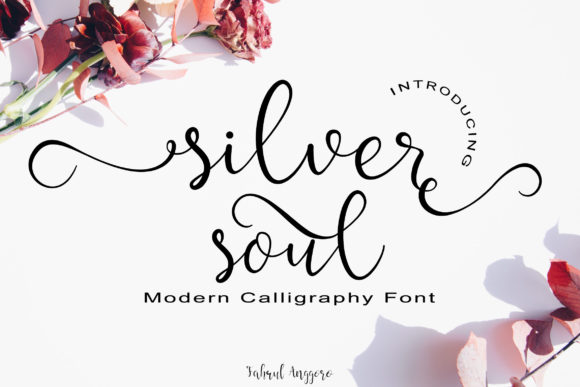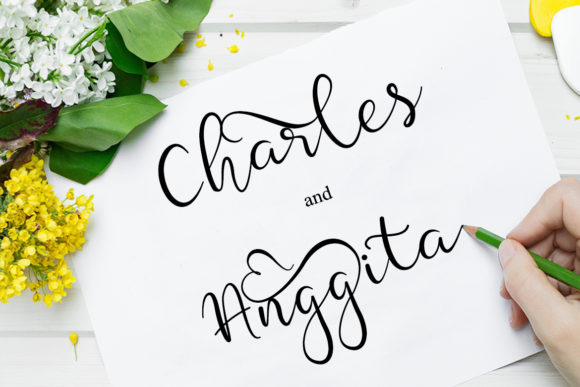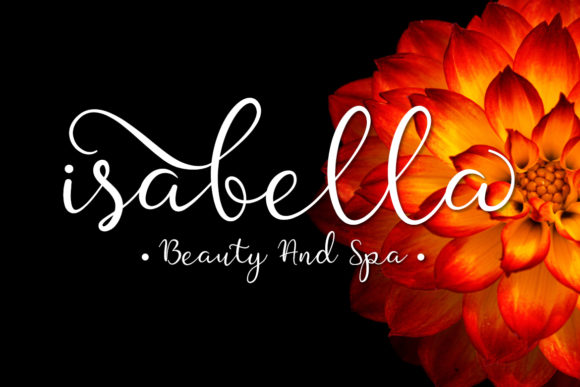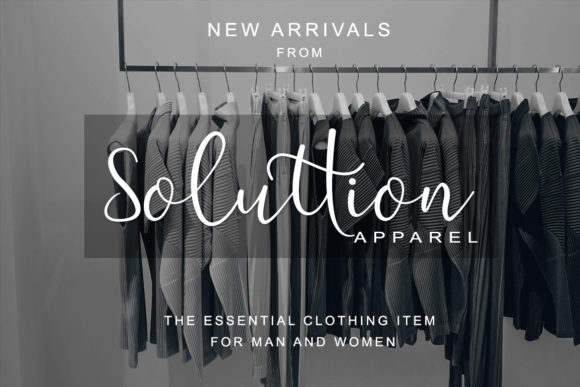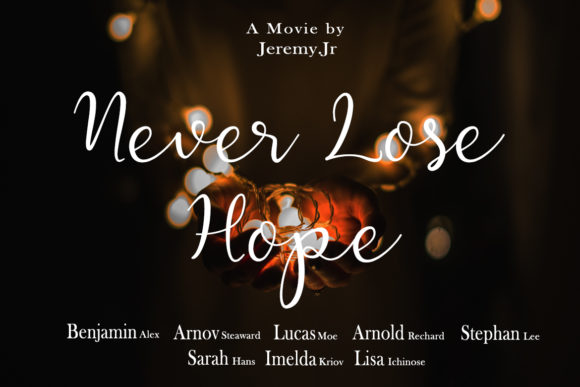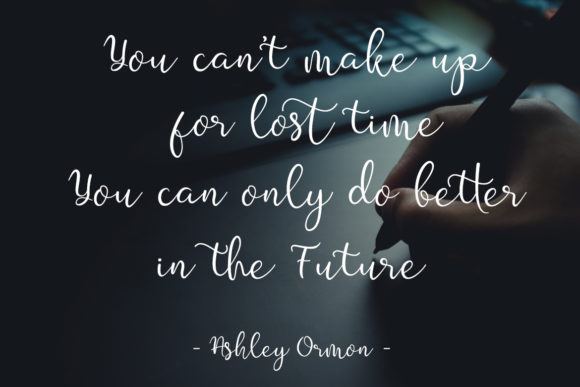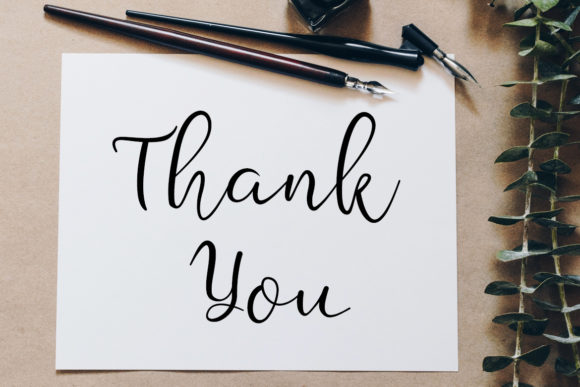
Silver Soul Font
About Silver Soul Font
The Silver Soul is an amazing calligraphy font. It has an elegant feel and is perfect for logos, wedding invitations, furniture design, signatures, branding, watermarks, and much more!